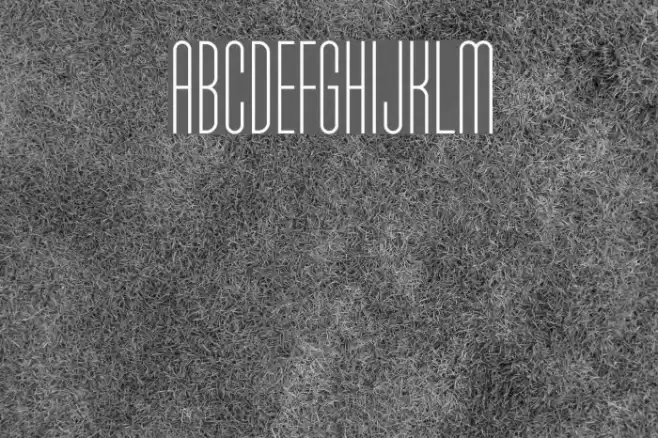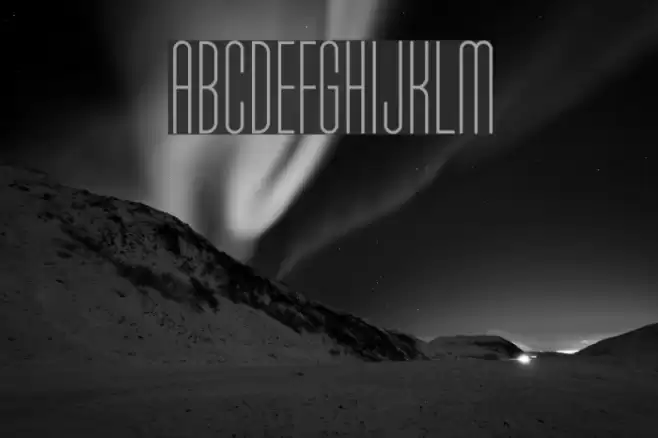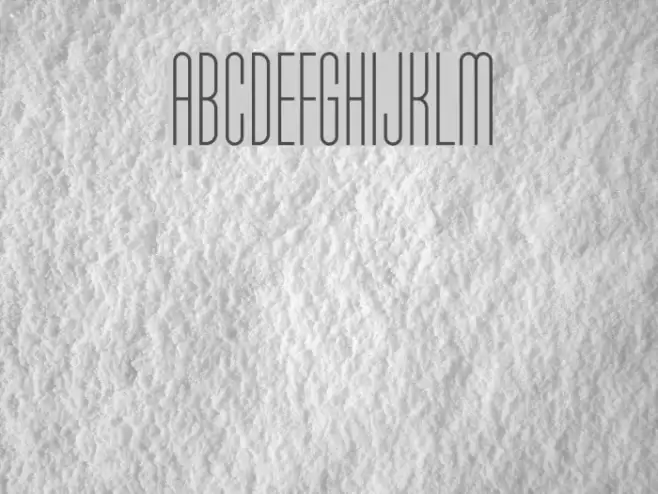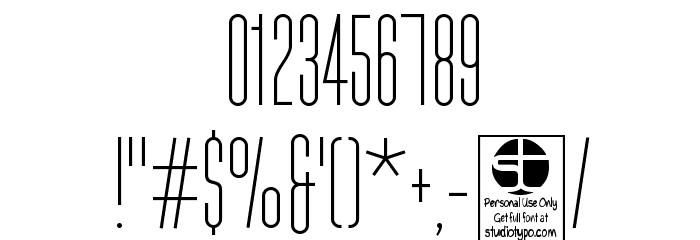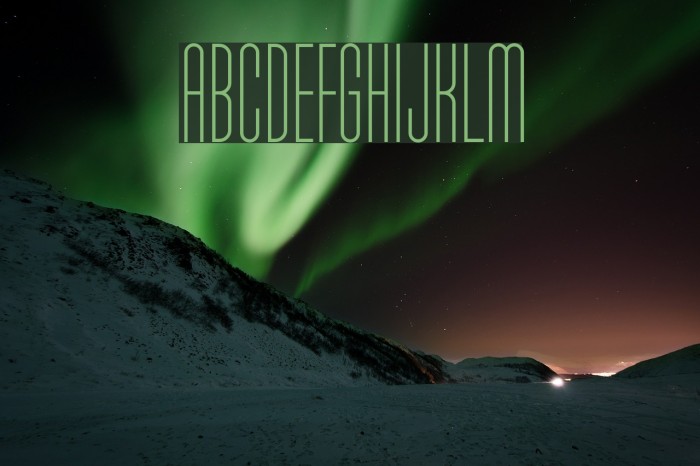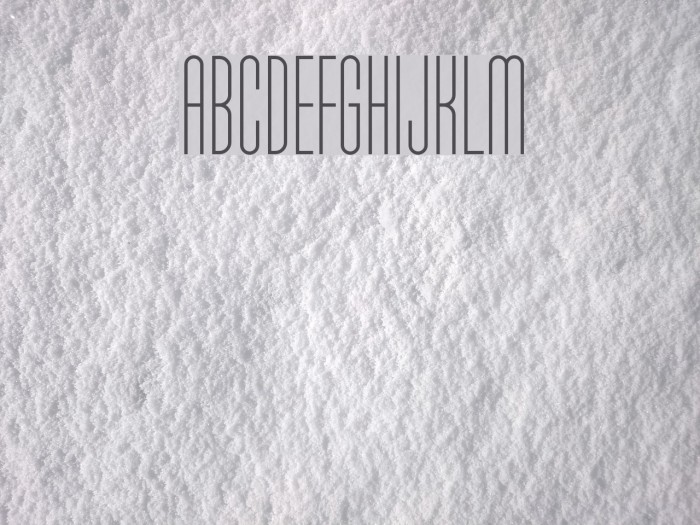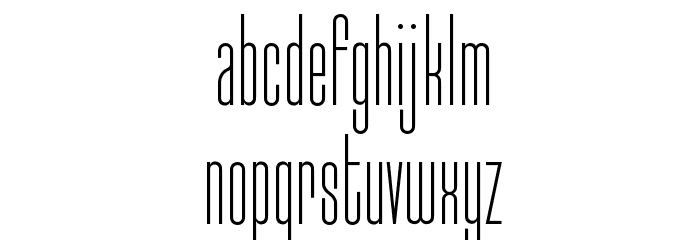
Typo-Longest Light Demo Font
Typo-Longest Light Demo Description
This font features an elongated and narrow design, characterized by its tall and slender letterforms. The strokes are consistently thin, giving it a light and airy appearance. The uppercase and lowercase letters maintain a uniform height, contributing to a cohesive and streamlined look. The numerals and special characters follow the same design principles, ensuring a harmonious overall style. The font's minimalistic and modern aesthetic makes it suitable for contemporary design projects where a clean and sophisticated look is desired.
A tall, slender, and modern font with thin strokes and a cohesive design from Uncategorized fonts.
- Proposed Projects: Ideal for fashion magazines, luxury branding, minimalist posters, and modern web design.